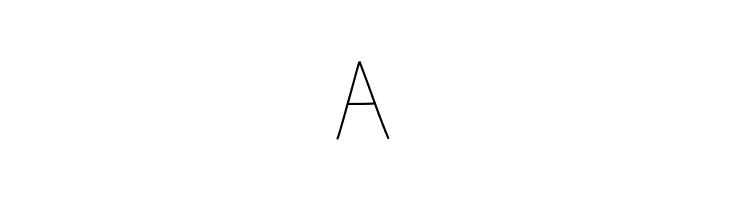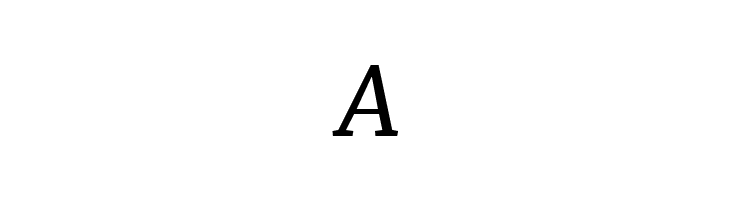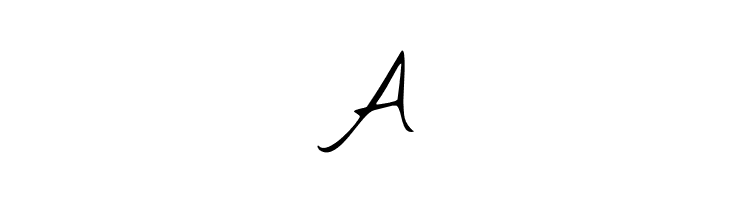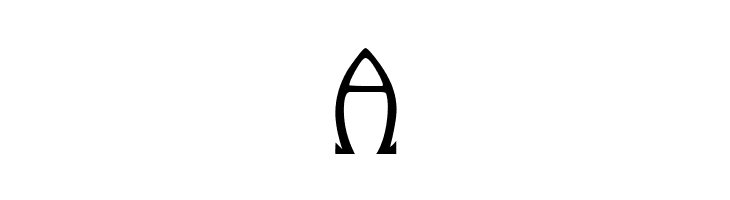
A modern, clean sans-serif font with uniform strokes and geometric influences.
A bold, angular font inspired by ancient runic alphabets.
A bold, dynamic script font with flowing, cursive characters and decorative details.
A fluid, handwritten style with dynamic strokes and a casual, artistic flair.
A dynamic and elegant cursive script font with a flowing style.
An elegant, flowing script font with interconnected, cursive strokes.
A playful, casual handwritten font with tall, narrow letters and rounded edges.
A bold, serif font with a classic and authoritative style.
A bold, graffiti-inspired font with sharp, angular lines and dynamic curves.
A bold, impactful font with strong, thick strokes and a commanding presence.
A bold, rounded font with a modern, playful aesthetic.
A clean, minimalist font with thin, uniform lines and excellent legibility.
A casual, handwritten font with fluid strokes and a personal touch.
A modern serif typeface with clean lines and balanced proportions.
A bold, classic serif font with moderate contrast and formal style.
A bold, italic serif font with a classic and authoritative style.
A classic serif font with an elegant italic slant, perfect for formal uses.
A bold, modern sans-serif font with clean lines and high legibility.
A bold, modern sans-serif font with clean lines and excellent readability.
A clean, modern sans-serif font with balanced letterforms and consistent stroke widths.
A clean, modern sans-serif font with a minimalistic and balanced design.
A modern sans-serif font with clean, uniform strokes and excellent legibility.
A modern, clean sans-serif typeface with excellent readability and balance.
A clean, minimalist font with thin lines and consistent spacing for modern elegance.
A decorative font featuring detailed illustrations of Notre Dame Cathedral for each character.
A decorative font inspired by Notre Dame's Gothic architecture.
A bold, classic serif font with strong, elegant strokes.
A classic serif font with elegant curves and refined details.
A pixelated, blocky font with a retro digital style.